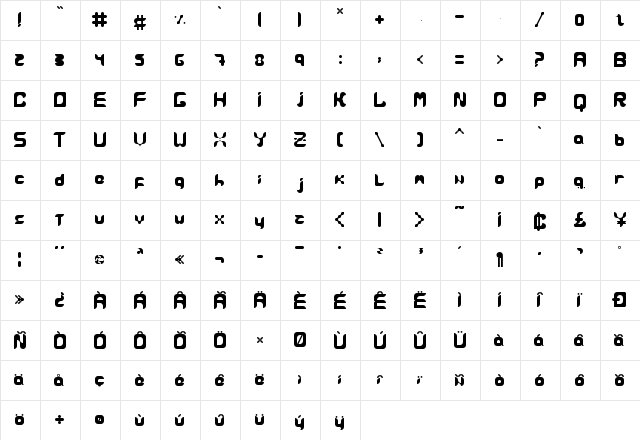
ONEbyRA Regular
| Designer | ravenAuchinleck |
Design Context for ONEbyRA Typeface
ONEbyRA offers clean, dependable letterforms without strong stylistic allegiance, making it a practical choice for designers who need flexibility.